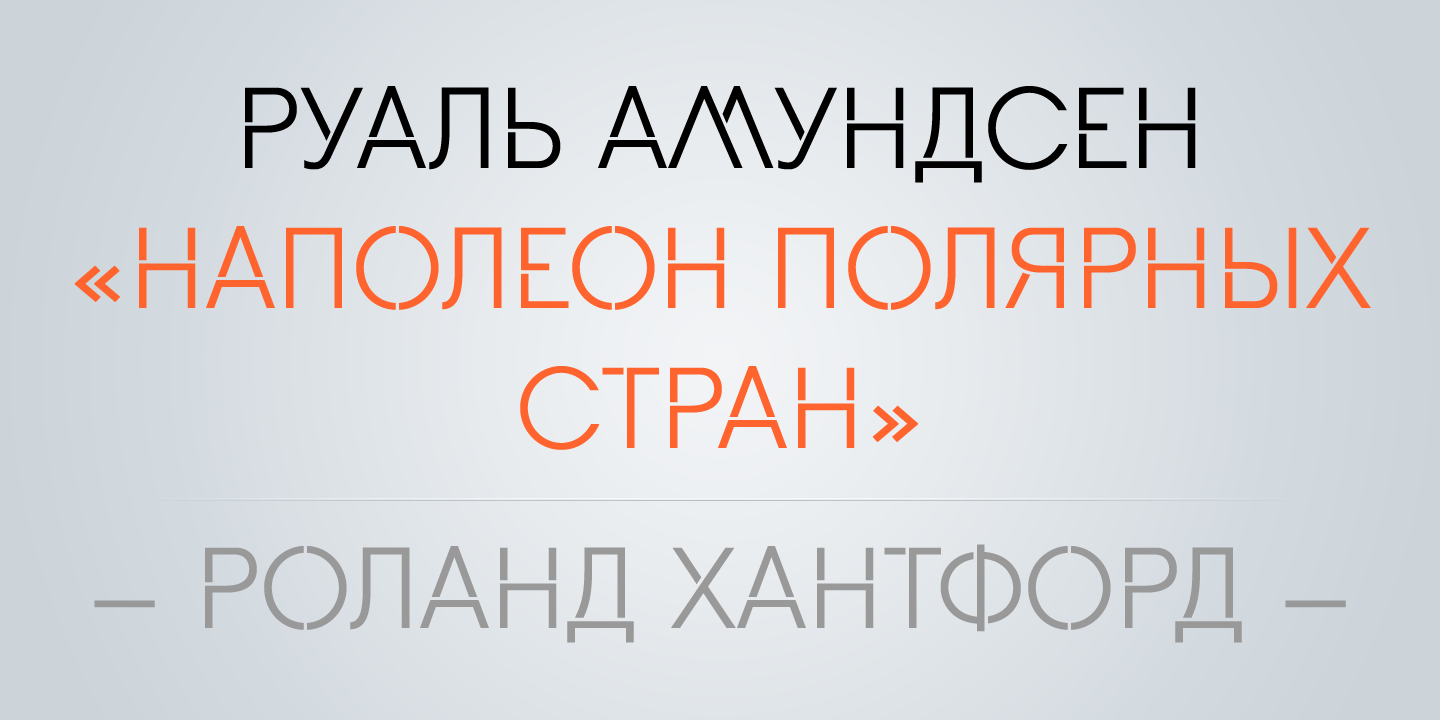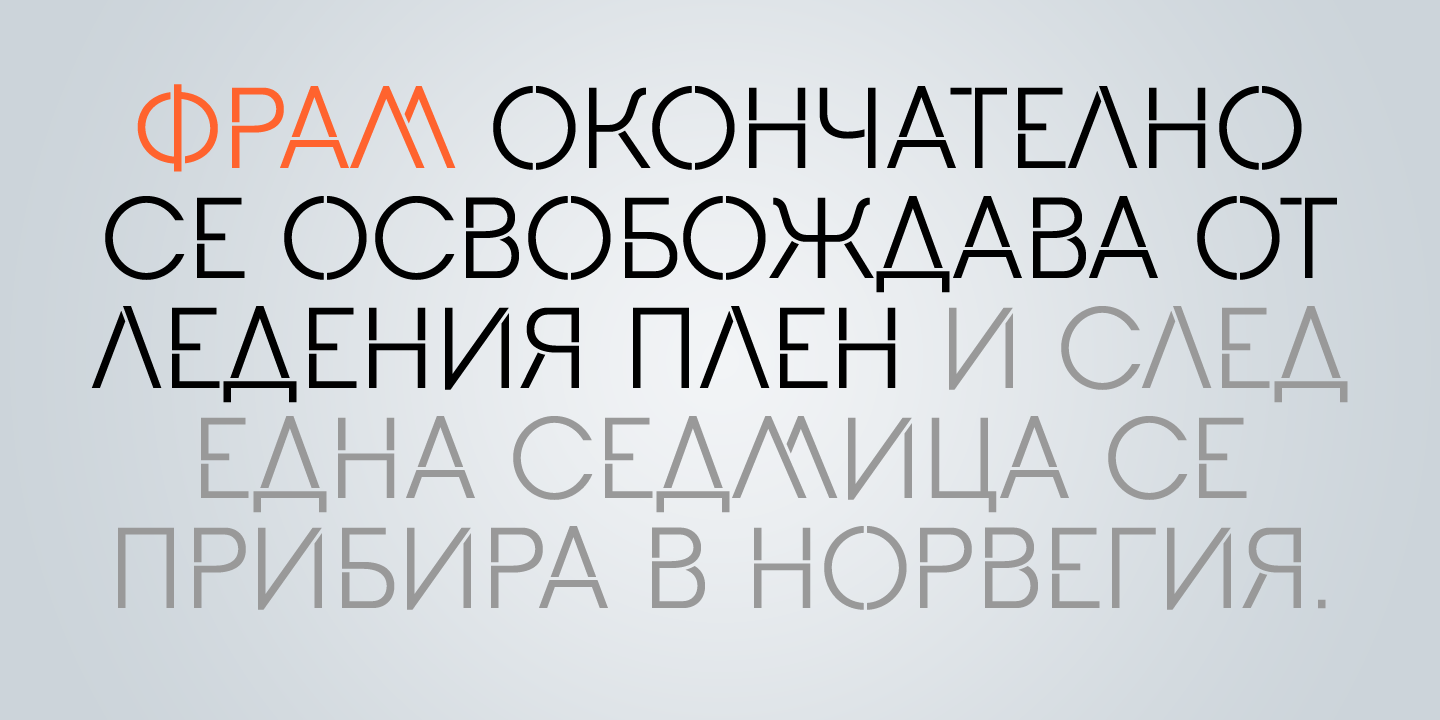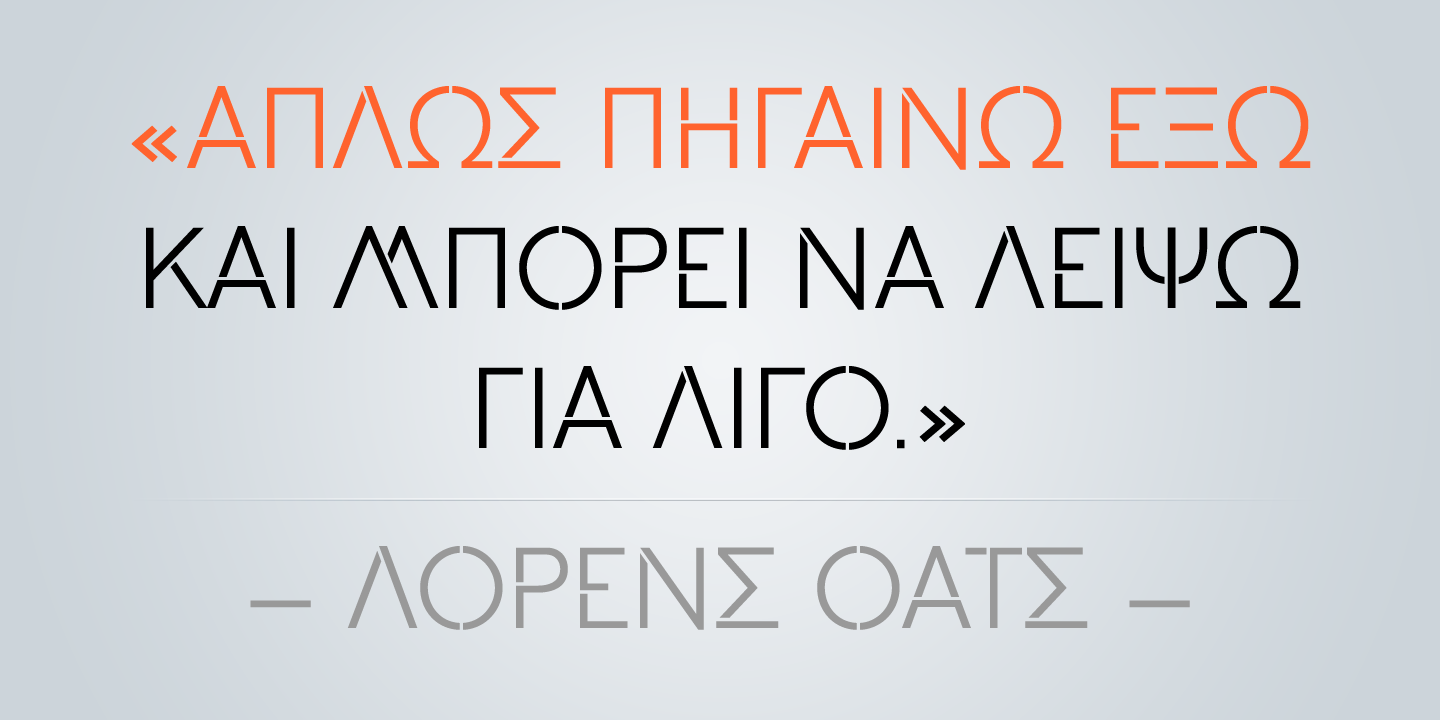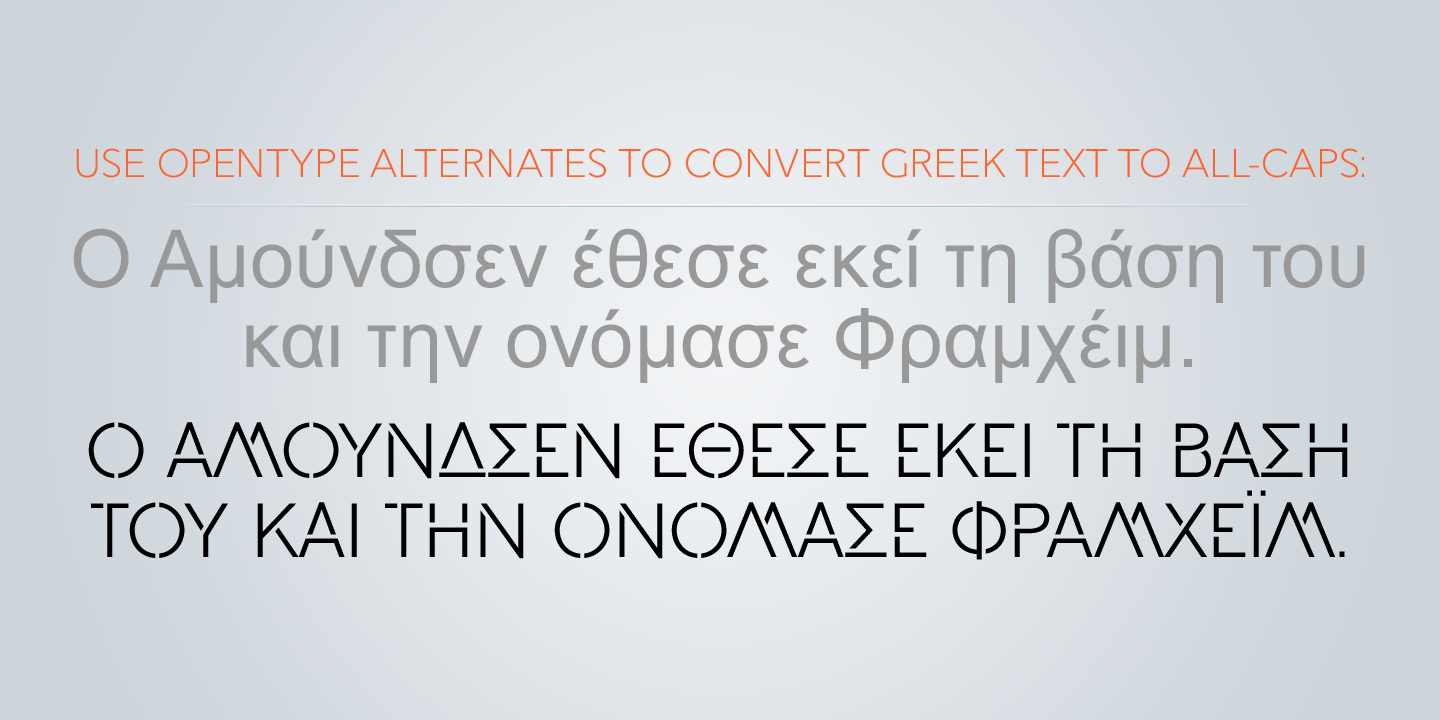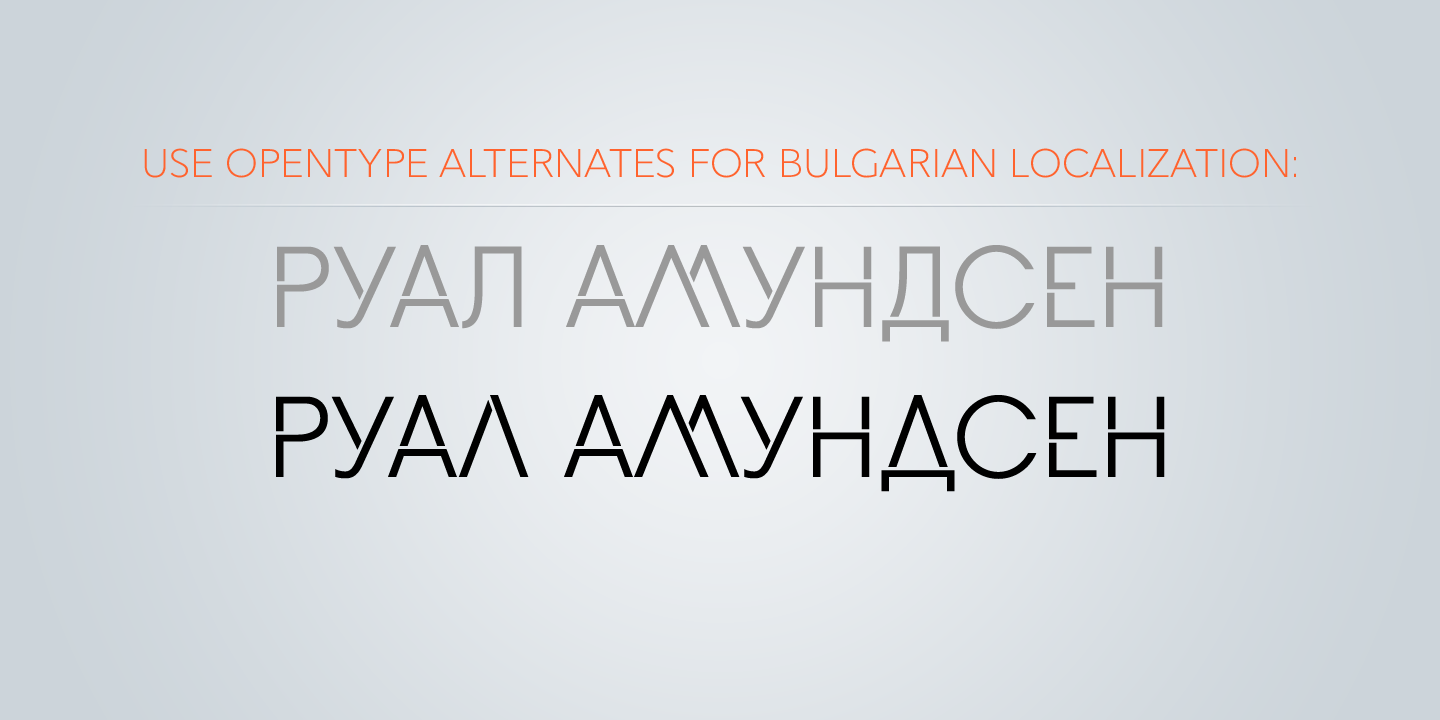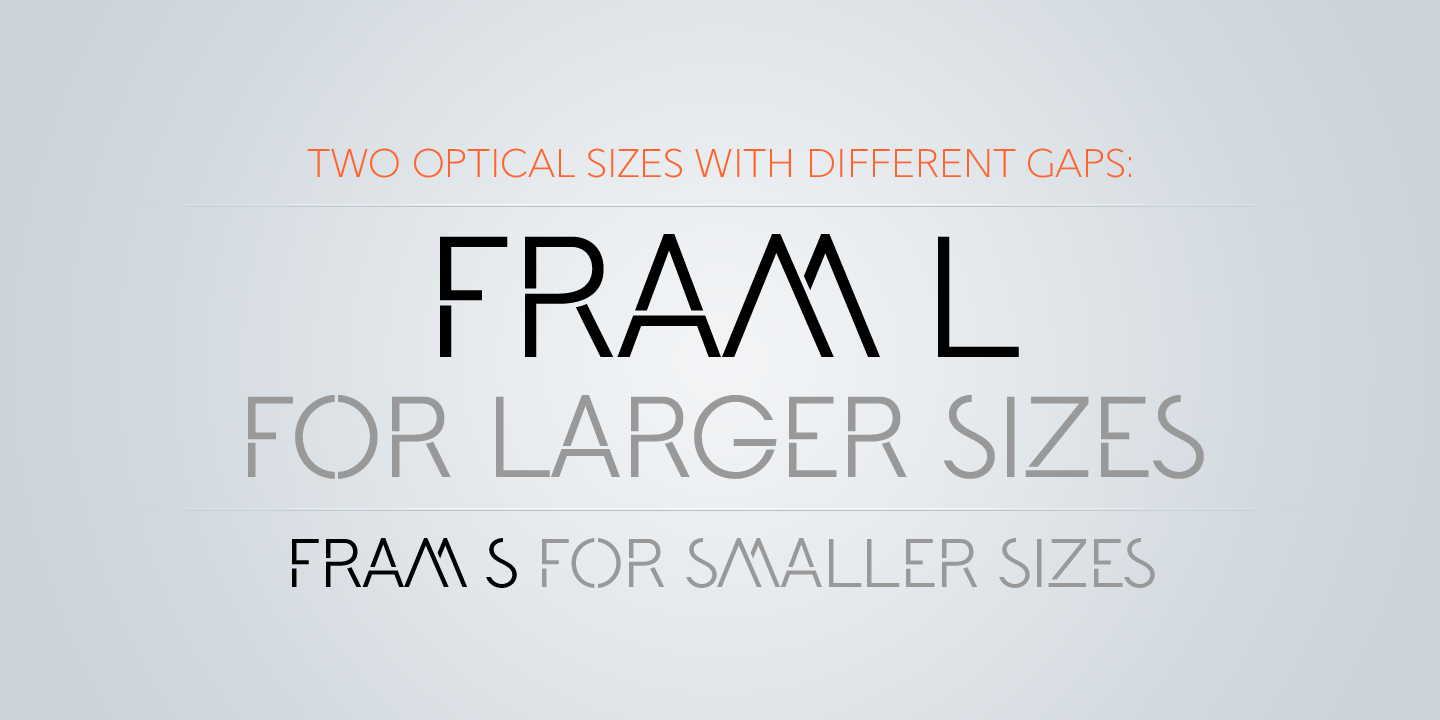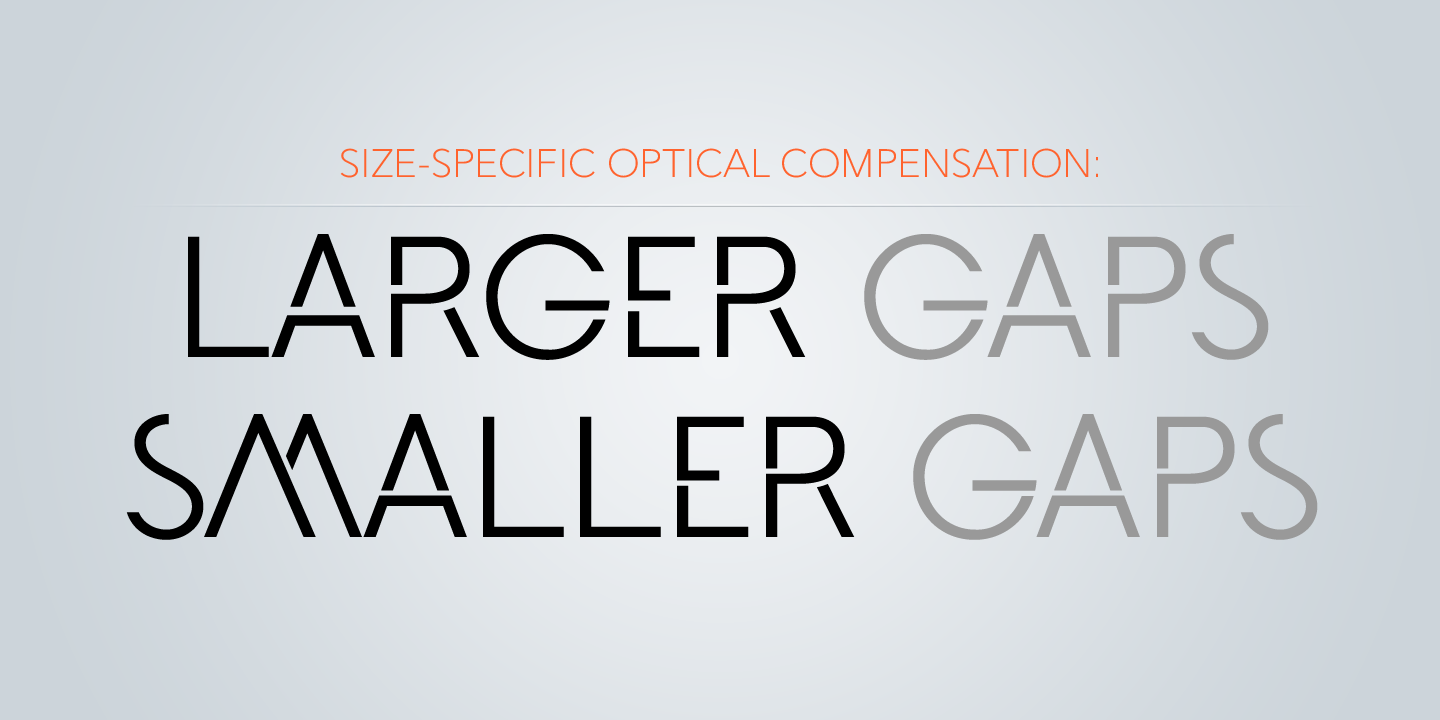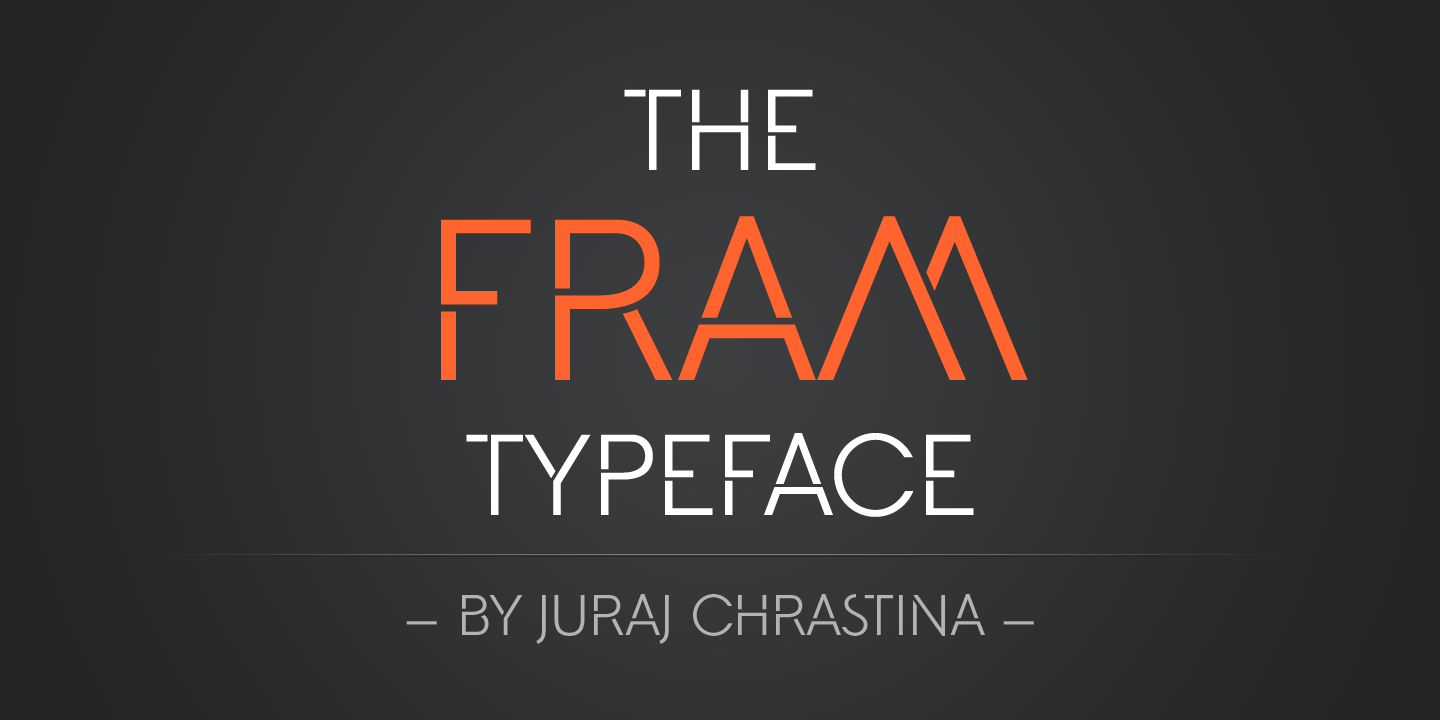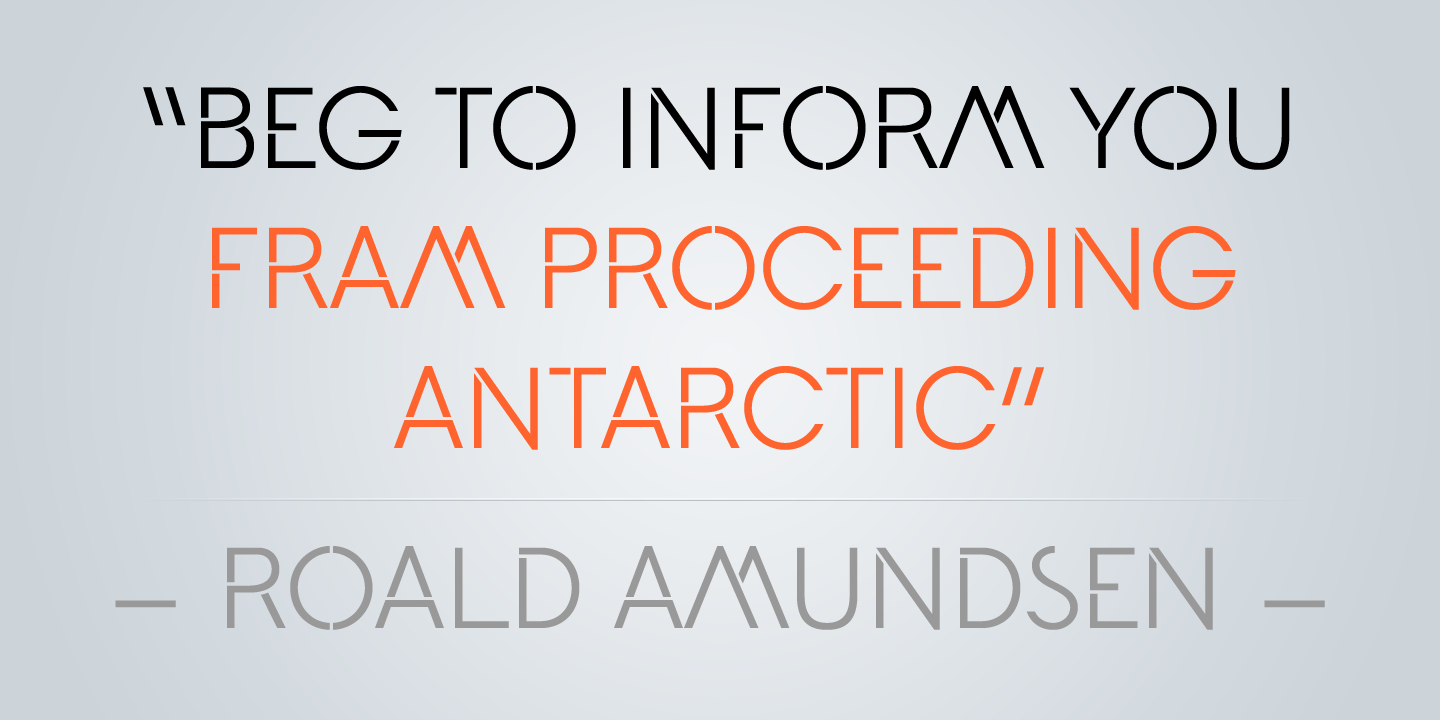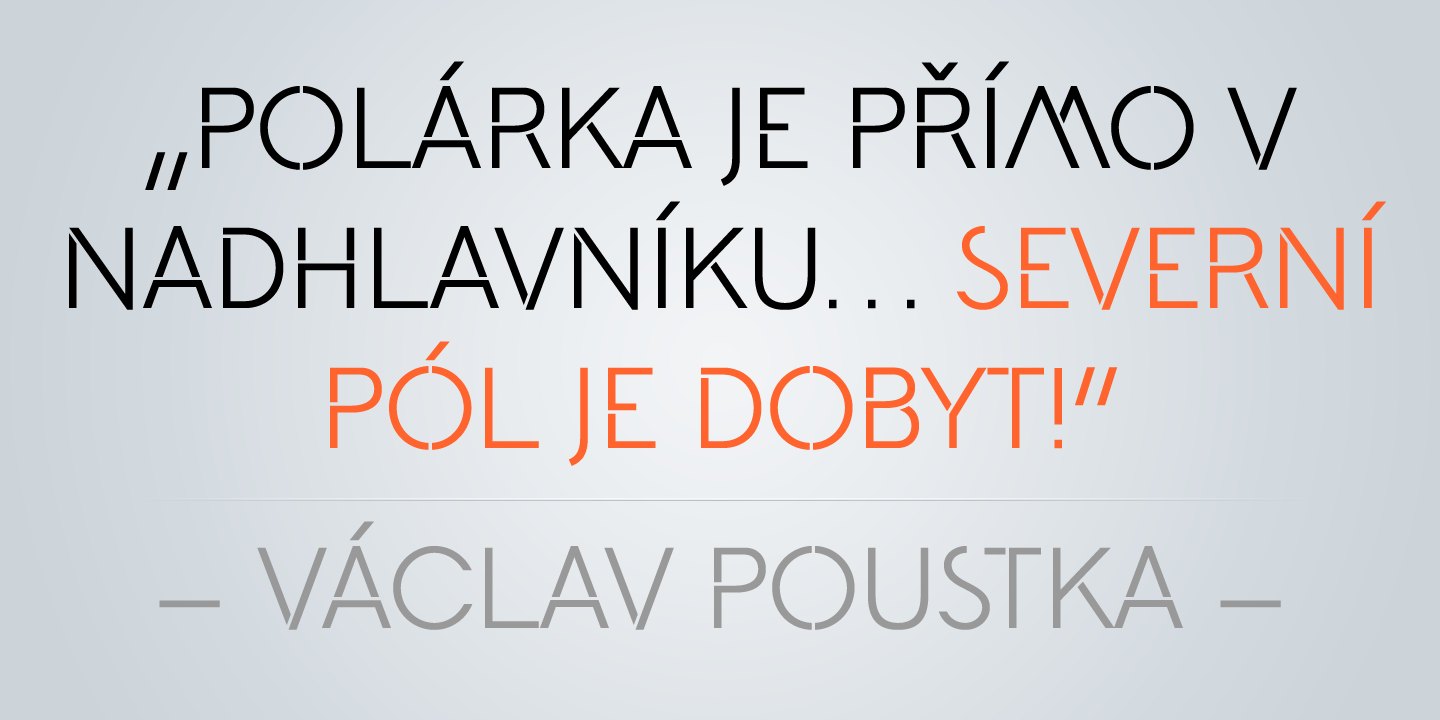
Fram Family (2 fonts)
From Juraj Chrastina Type
Fram L is intended for use at large sizes and Fram S with larger gaps guarantees good performance even when the size is reduced.